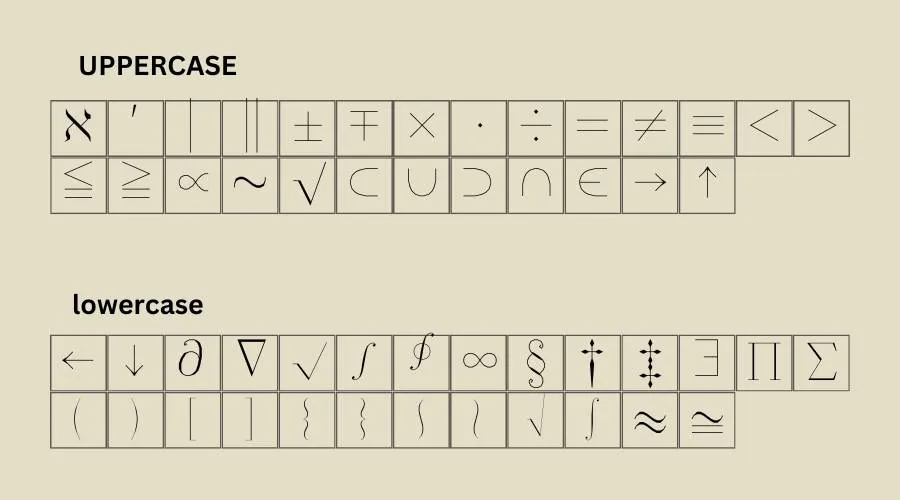
About Symath Font
The Symath Font was created by OnlineWebFonts with a unique and eye-catching texture look appearance. This font looks like the Dingbats texture family and it contains stunning types of weights (regular, bold, italic) and styles.